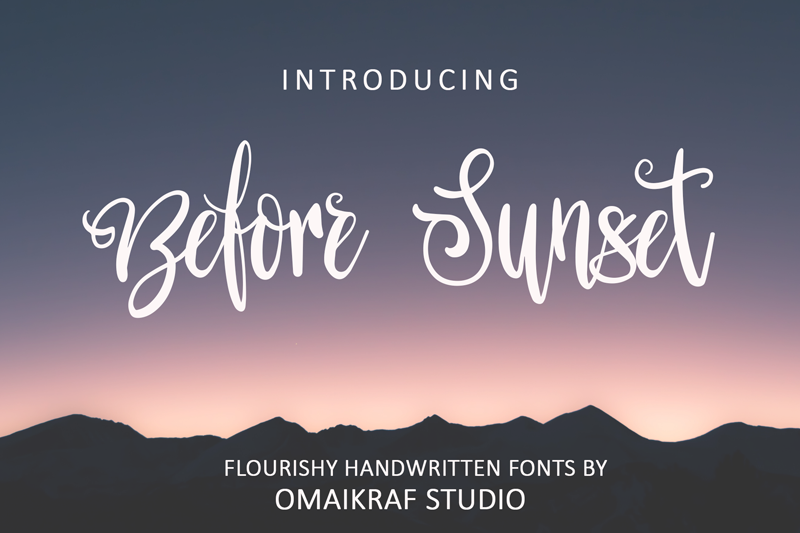
Font name: | Before Sunset |
Author: | Omaikraf Studio |
Before Sunset is suitable for every craft projects such as print out design, embroidery, and so many more. Free for personal use, please contact us prior to commercial use. Check out our other fonts at Omaikraf Studio. Thanks for visiting us. |